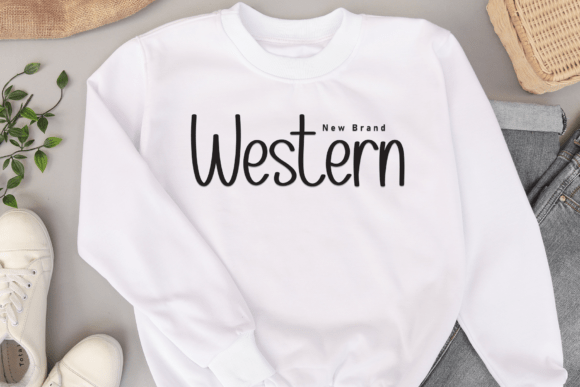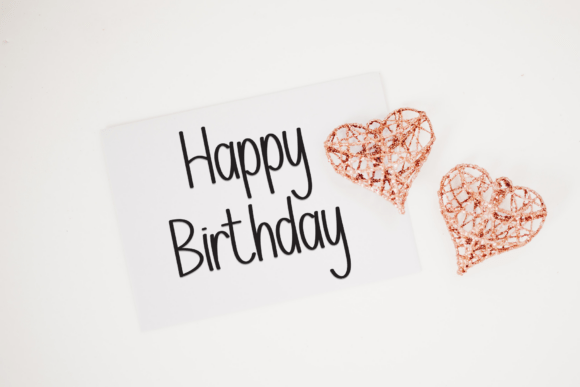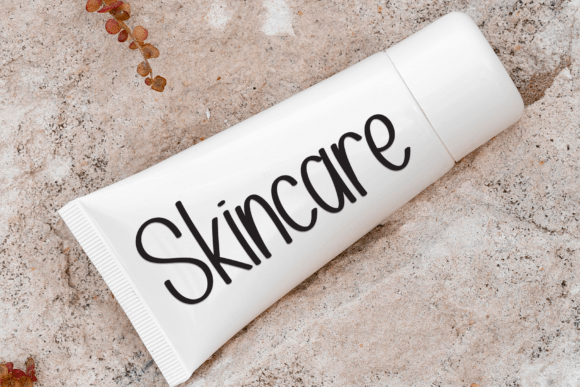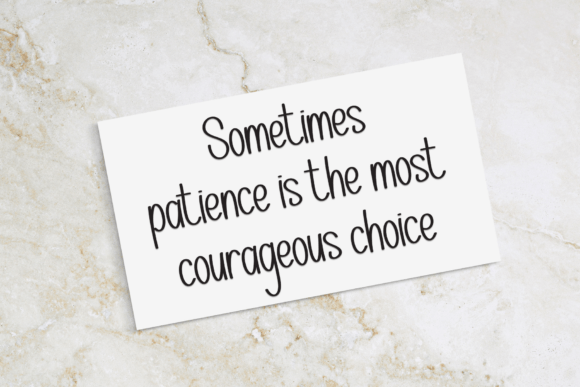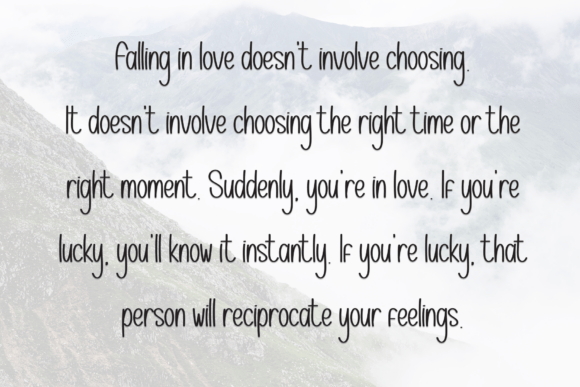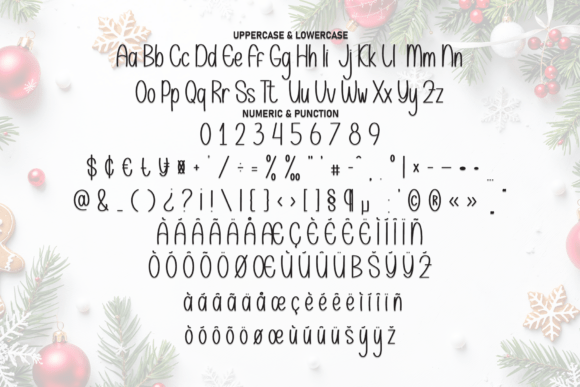
Introducing the Enchanting Background Christmas Font: Elevate Your Designs with Whimsy and Charm
Are you searching for a typographic sensation that embodies the delicate allure of the holiday season? Look no further! Our newest Background Christmas Font is here to mesmerize your designs with its handwritten display charm, infusing them with a tender enchantment that’s sure to captivate your audience. This bewitching font is the perfect pick for crafting wedding invitations, conceptualizing cards, or adding a sprinkle of joviality to any project.
A Font that Transcends Typography
Our Background Christmas Font is more than just a typeface – it’s an artistic swirl that metamorphoses your design into a delightful spectacle and an evocative experience. With its whimsical charm and distinctive character, this font elevates your design ventures into a universe of coziness and irresistible allure. Whether you’re a designer, crafter, or DIY enthusiast, this affectionately-designed font is sure to become your new favorite companion.
Delicate Allure and Charisma
So, what sets our Background Christmas Font apart from the rest? For starters, its delicate allure is unmatched. The font’s handwritten display style exudes a sense of warmth and personality, making it perfect for designs that require a touch of whimsy and charm. The charismatic strokes and curves of this font will transport your audience to a world of wonder and magic, making it an ideal choice for:
- Wedding invitations and announcements
- Holiday cards and gift tags
- Any project that requires a dash of personality and flair
Crafting an Evocative Experience
Our Background Christmas Font is designed to evoke emotions and create a lasting impression. With its fanciful charm and artistic swirl, this font will help you craft designs that are not only visually stunning but also emotionally resonant. Whether you’re aiming to create a sense of nostalgia, wonder, or excitement, this font will help you connect with your audience on a deeper level.
Why Choose Our Background Christmas Font?
Here are just a few reasons why our Background Christmas Font stands out from the crowd:
- Unique and distinctive character: Our font boasts a one-of-a-kind design that’s sure to make your projects stand out.
- Whimsical and charming: The font’s handwritten display style adds a touch of personality and whimsy to any design.
- Versatile and adaptable: Use our font for a wide range of projects, from wedding invitations to social media graphics.
- Easy to use and customize: Our font is designed to be user-friendly and easily customizable to fit your design needs.
In conclusion, our Background Christmas Font is a game-changer for designers and crafters looking to add a touch of whimsy and charm to their projects. With its delicate allure, charismatic strokes, and artistic swirl, this font is sure to captivate your audience and elevate your designs to new heights. So why wait? Download our Background Christmas Font today and start crafting designs that are truly magical!